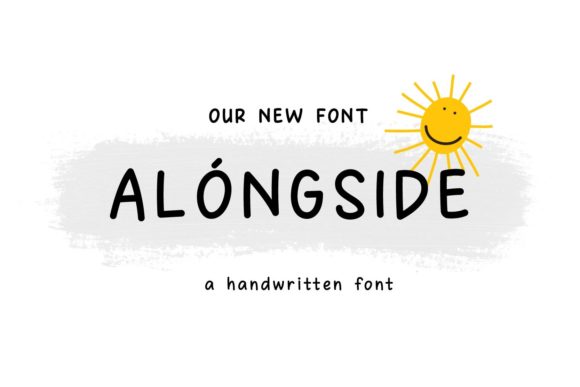
The Sweet Spot: Discovering the Charm of Alongside Font
I’ll never forget the time I was working on a project for a client who wanted a font that was “cute,” “delicate,” and “whimsical.” I scoured the internet, tried out dozens of fonts, but nothing seemed to fit the bill. That was until I stumbled upon Alongside Font. Its sweet and lively style instantly captured my attention, and I knew I had found the perfect fit. In this article, I’ll share my experience with Alongside Font, its features, and how to make the most of it in your designs.
A Honest Review: The Good and the Quirky
What I Love About Alongside Font
• ✨ Cute and delicate: Alongside Font is perfect for designs that require a touch of sweetness and innocence.
• ✅ Easy to read: Despite its delicate nature, Alongside Font is surprisingly legible, even at smaller font sizes.
• 🌈 Versatile: This font is suitable for a wide range of design projects, from invitations and greeting cards to branding and packaging.
While Alongside Font is a beautiful addition to any design, there are a few quirks to be aware of:
• 🤔 Limited character set: Alongside Font may not have an extensive character set, which can limit its use in certain projects.
• ⚠️ Not suitable for body text: Due to its delicate nature, Alongside Font is best used for headlines, titles, or short paragraphs.
The Story Behind Alongside Font
Alongside Font was designed with the intention of creating a font that was both cute and elegant. The designer wanted to create a font that would add a touch of sweetness to any design project. With its delicate lines and whimsical feel, Alongside Font is perfect for designers who want to add a personal touch to their work.
Q: What type of projects is Alongside Font best suited for?
A: Alongside Font is perfect for designs that require a touch of sweetness and innocence, such as invitations, greeting cards, and branding projects.
Q: Is Alongside Font easy to read?
A: Yes, Alongside Font is surprisingly legible, even at smaller font sizes.